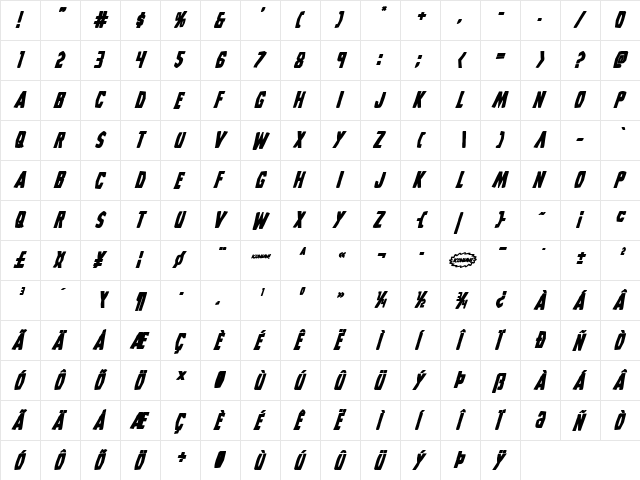
Grim Ghost Bold Italic Font Preview
Design Context for Grim Ghost Bold Italic Typeface
Grim Ghost Bold Italic takes a measured approach to typography — its balanced proportions and neutral character make it a reliable workhorse for both digital and print work. The dynamic lean of this cut emphasises speed and emphasis in any layout. The heavy weight commands attention and anchors typographic hierarchies.
Pro Tip: Try Grim Ghost Bold Italic for annotation and caption copy alongside an upright companion — the contrast in angle creates a dynamic but ordered typographic system.